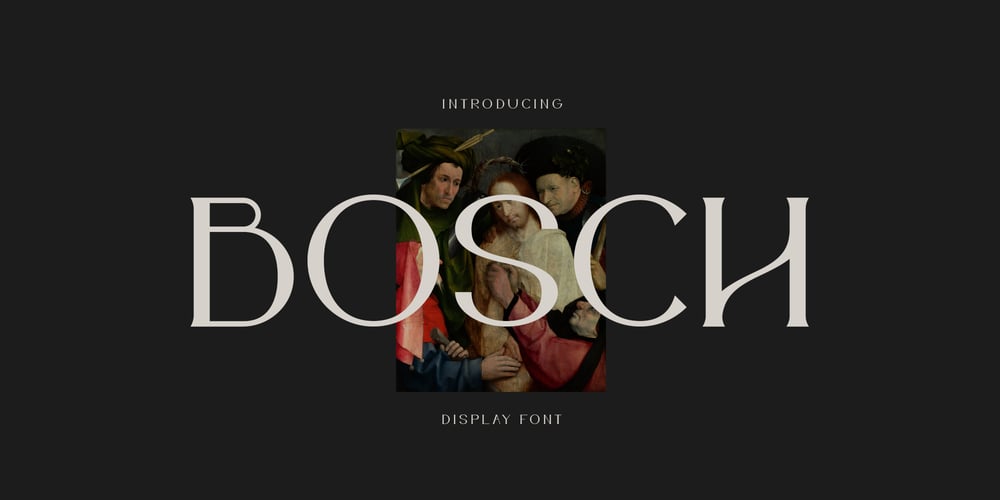
Bosch Font Family was designed by Thodoris Nikolopoulos and published by iframe. Bosch contains 1 styles and family package options. Bosch is a serif font, its soft curves and refined details create a sense of elegance. Bosch is known for creating restlessly imaginative works rich in religious symbolism, allegory, and fantastical elements depicted in bustling scenes across expansive compositions.FEATURES1 weightUpper / lower case, numbers, punctuationSupported Languages: Latin & Greek